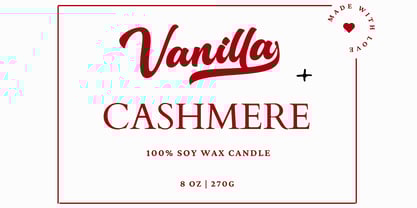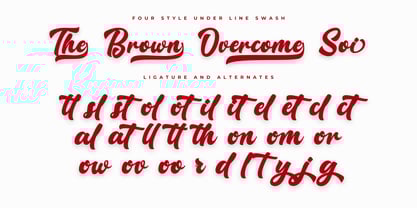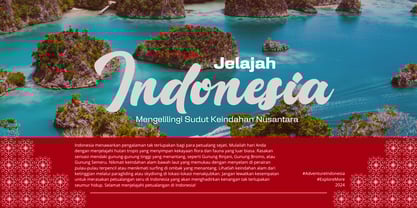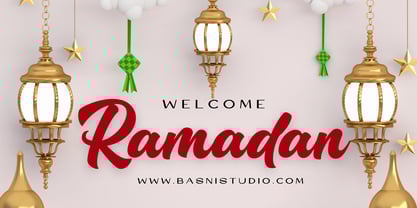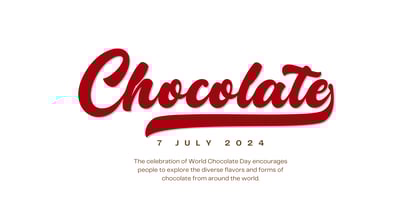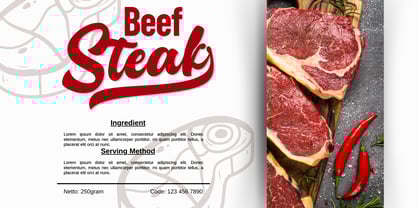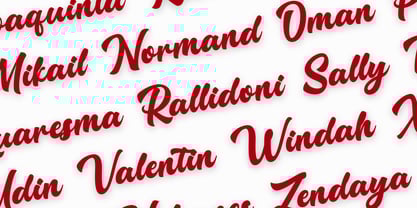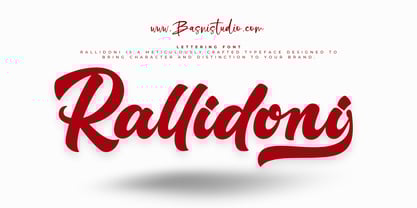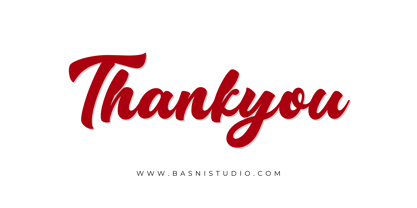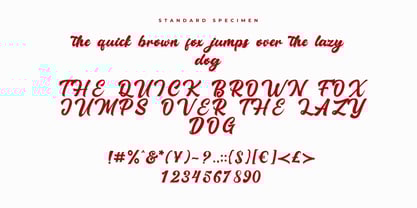
Rallidoni
Introducing Rallidoni Lettering Font: A Typeface That Defines Your BrandTypography isn’t just about letters—it’s about identity, emotion, and impact. Rallidoni
is a meticulously crafted typeface designed to bring character and distinction to your brand.
Why Choose Rallidoni?
✔ Unique Logo Lettering Style – A signature design that sets you apart.
✔ Versatile & Bold – Perfect for branding, packaging, and digital presence.
✔ Seamless Integration – Designed for logos, headlines, and creative applications.
Whether you’re building a powerful brand identity or crafting a standout logo, Rallidoni
gives you the creative edge you need.
What’s Included:
• Uppercase & lowercase letters
• Ligature & Swashes
• Numbers & punctuation
• Multilingual Support ( Support for 90 languages )